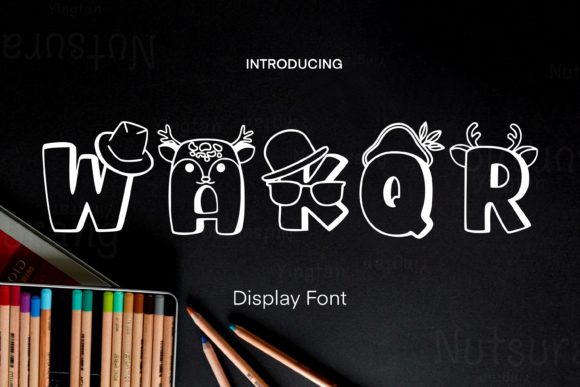
Dive into the world of Wakqr Font, a decorative masterpiece that inspires creativity and adds a touch of uniqueness to your designs. This remarkable font family unlocks a realm of possibilities, making it the perfect choice for logos, t-shirt designs, creative products, and more. Experience the magic of Wakqr and let your imagination soar.
With its cool, quirky, and original style, Wakqr Font captivates attention and leaves a lasting impression. Its intricate details and distinctive charm bring life to your creations, making them stand out from the ordinary. Whether you're a seasoned designer or just starting your creative journey, Wakqr Font is your perfect companion.
Immerse yourself in the beauty of Wakqr Font, crafted with precision and passion by N Nakorn Creative. Each letter is a work of art, meticulously designed to evoke emotions and create a visual impact that resonates with your audience. Unleash your creativity and explore the endless possibilities that Wakqr Font offers.